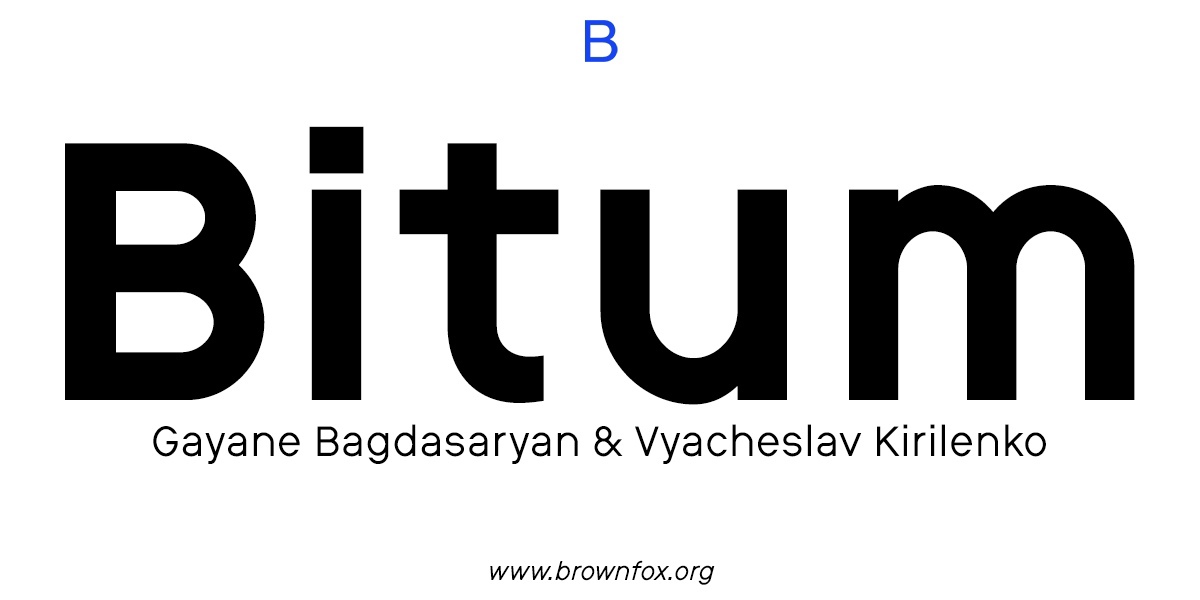
Bitum Font
Bitum Font is perfect for various design applications including industrial construction branding, heavy equipment company logos, road construction signage, infrastructure development materials, mining industry communications, heavy machinery packaging, construction worker safety materials, industrial engineering presentations, roadwork project displays, and authentic blue-collar industry identities. This robust typeface excels in projects requiring industrial strength and construction authenticity that captures the durability and reliability of heavy industry and infrastructure development.
What makes Bitum Font so exciting is its powerful embodiment of industrial strength and construction durability through letterforms that suggest the raw materials and heavy machinery essential for building modern infrastructure. The font features bold construction that mirrors steel beams and concrete structures, rugged proportions that communicate industrial reliability and heavy-duty performance, and distinctive character details that evoke asphalt textures, construction equipment, and the honest craftsmanship of industrial workers. Its distinctive industrial character and construction authenticity make it perfect for heavy industry brands seeking to communicate strength, reliability, and the foundational importance of infrastructure development and industrial manufacturing.
Bitum Font family includes multiple industrial weights and construction variations that enhance its versatility for different heavy industry applications. Each style maintains the font's signature construction character while providing options for various industrial design approaches. The family also features industrial decorative elements, construction symbols, and heavy machinery ornaments that can be combined with the letterforms to create cohesive infrastructure development design systems.
Whether you're developing construction brands, industrial communications, or infrastructure projects, Bitum Font Free Download provides robust typography that builds confidence and celebrates the essential role of heavy industry in creating the foundation of modern civilization. This typeface transforms ordinary communications into solid statements that promise industrial reliability and construction excellence. The font's industrial appeal makes it particularly effective for construction companies, heavy equipment manufacturers, and infrastructure developers targeting audiences who appreciate industrial strength and blue-collar expertise.
Bitum Font stands out by delivering authentic industrial strength that feels connected to real construction work rather than artificial industrial theming. Its carefully engineered construction proportions and industrial details ensure that designs feel genuinely connected to heavy industry traditions and infrastructure development. From construction company branding to industrial safety materials, this font provides designers with tools to create communications that celebrate industrial craftsmanship and inspire confidence in heavy industry through solid, construction-grade typography that's built to last.